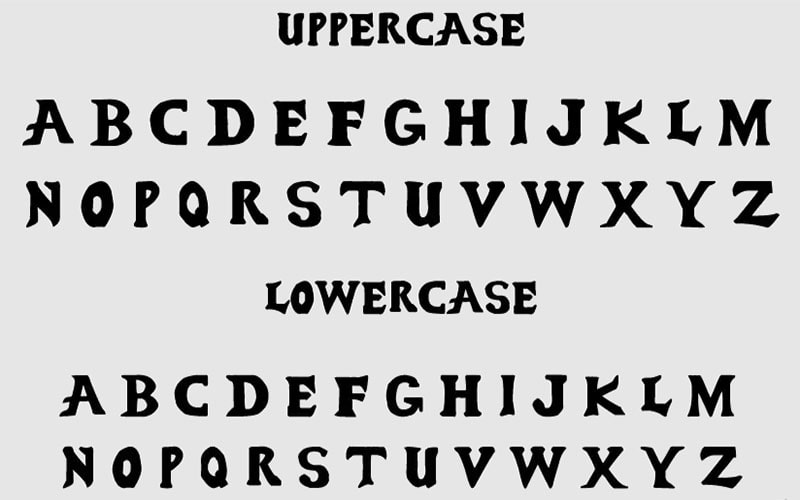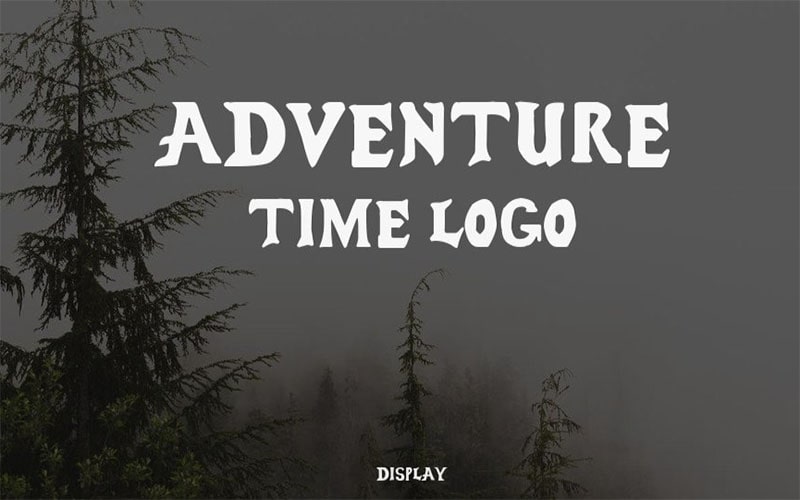
Adventure Time Logo Font is a great display typeface. It contains bold and stylish characters that give your project an outstanding look.
Font Meme designed this font for the first time. Adventure Time is the name of an American fantasy animated TV series. This series was produced by Pendleton Ward for Cartoon Network.
This amazing font has strange, asymmetrical strokes that look like they were made by hand. Its flexibility for many design needs stems from its availability in various weights and styles, such as bold, italic, and regular.
Adventure Time Logo Font
So, this font is multilingual, users may generate material in contexts other than English, making it more accessible and appealing to a wider audience.
The Adventure Time font is perfect for a variety of creative tasks, including social media graphics, event posters, creating Shop names, Quotes, Letterheads, Website headers, footers, children’s books, and many more.